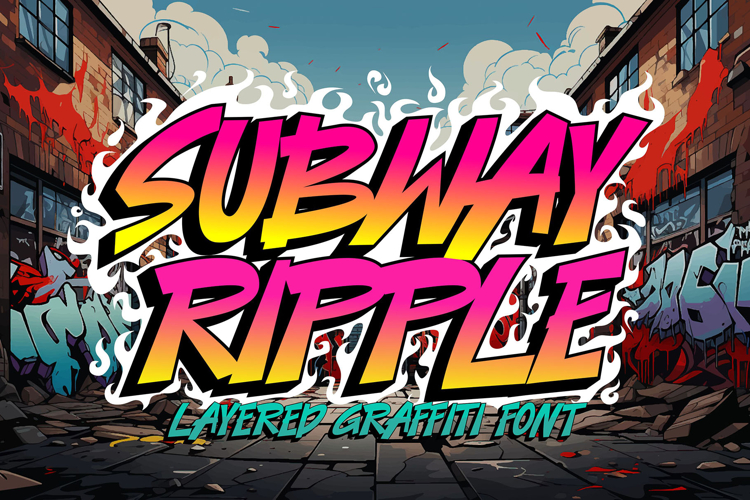
Subway Ripple - Layered Graffiti Font
Subway Ripple is a layered graffiti font that captures the essence of urban art with its bold and dynamic design. Each letter is crafted with a ripple effect, mimicking the fluidity and motion of street art, making it perfect for projects that require a raw, expressive look.
🌆 Urban Vibes: Subway Ripple embodies the gritty, energetic spirit of graffiti found in subways and city streets. Its layered design adds depth and texture, bringing your work a realistic street art feel.
🎨 Versatile Layers: With customizable layers, Subway Ripple allows you to experiment with different combinations to achieve the perfect look. Whether you're creating posters, apparel, or branding, this font will enable you to craft something truly unique.
🔥 Bold Impact: The strong, wavy strokes of Subway Ripple ensure that your message will stand out. This font is designed for designs that need to make a statement, giving your work a bold, rebellious edge.
Subway Ripple is more than just a font—it's a tool for bringing the energy of the streets into your designs, perfect for creating artwork that resonates with the pulse of urban life.